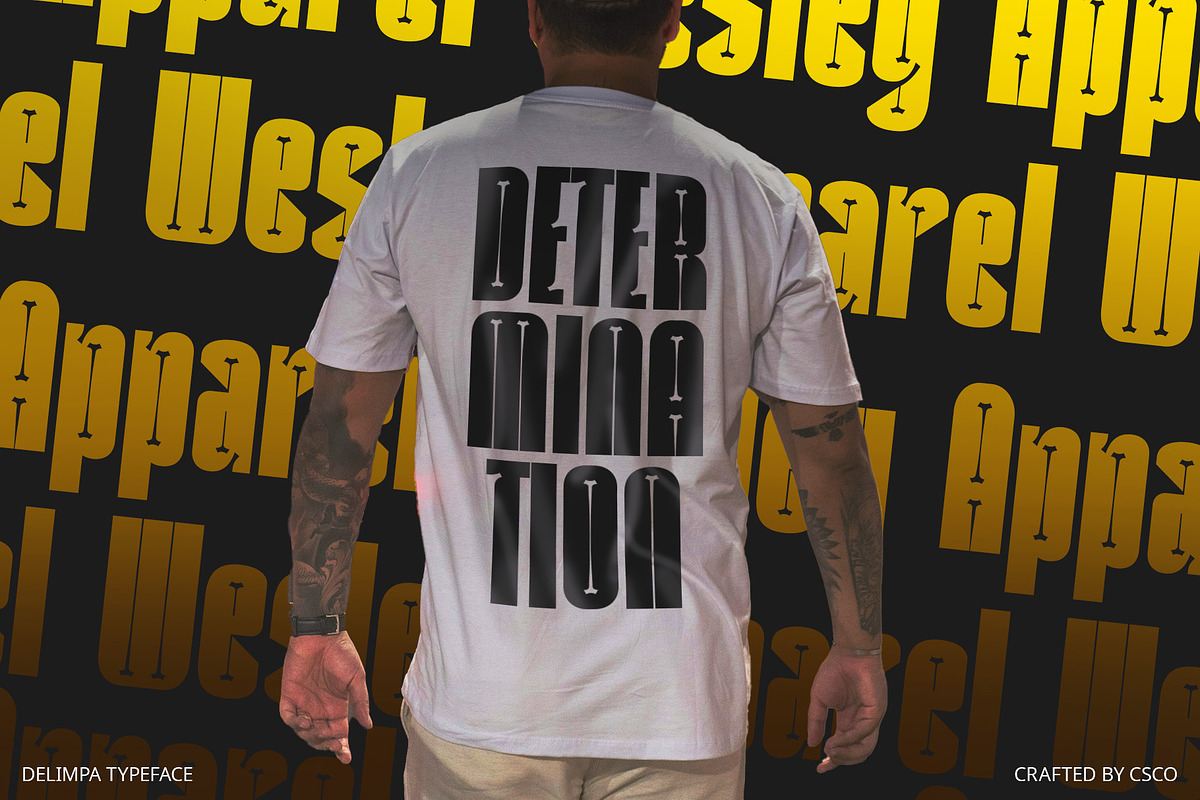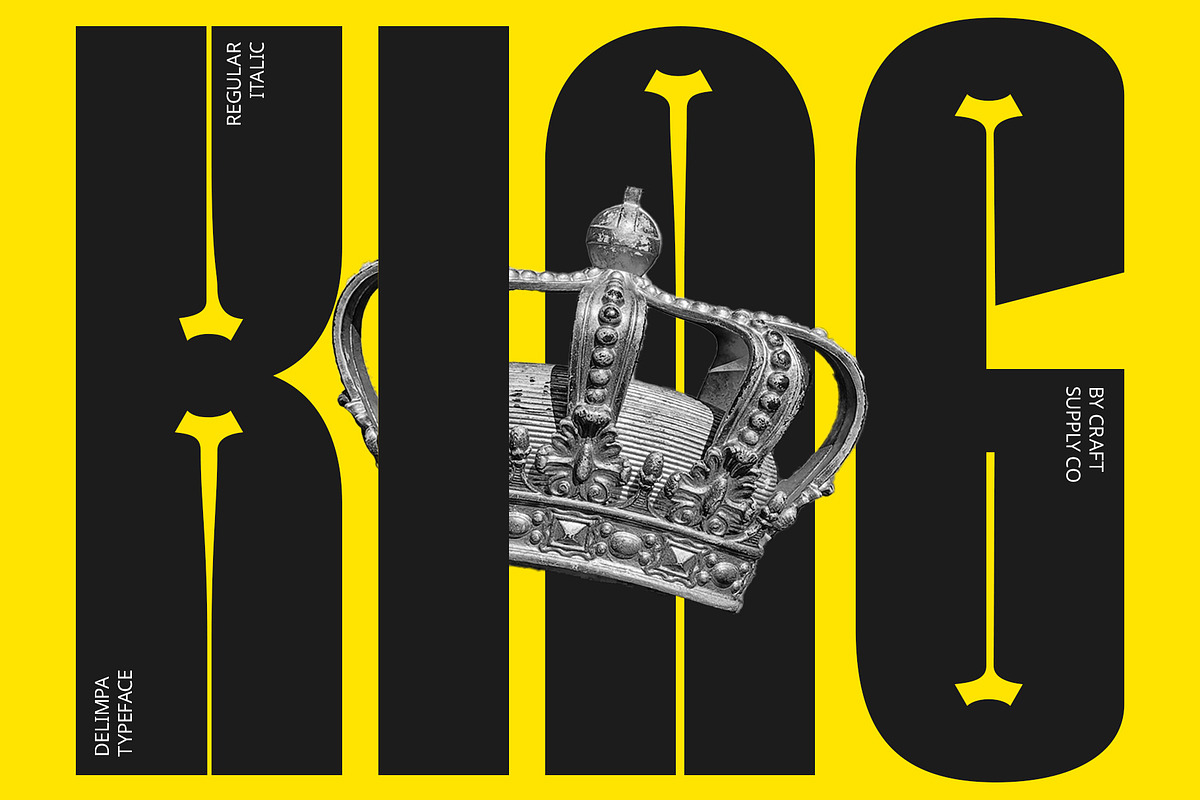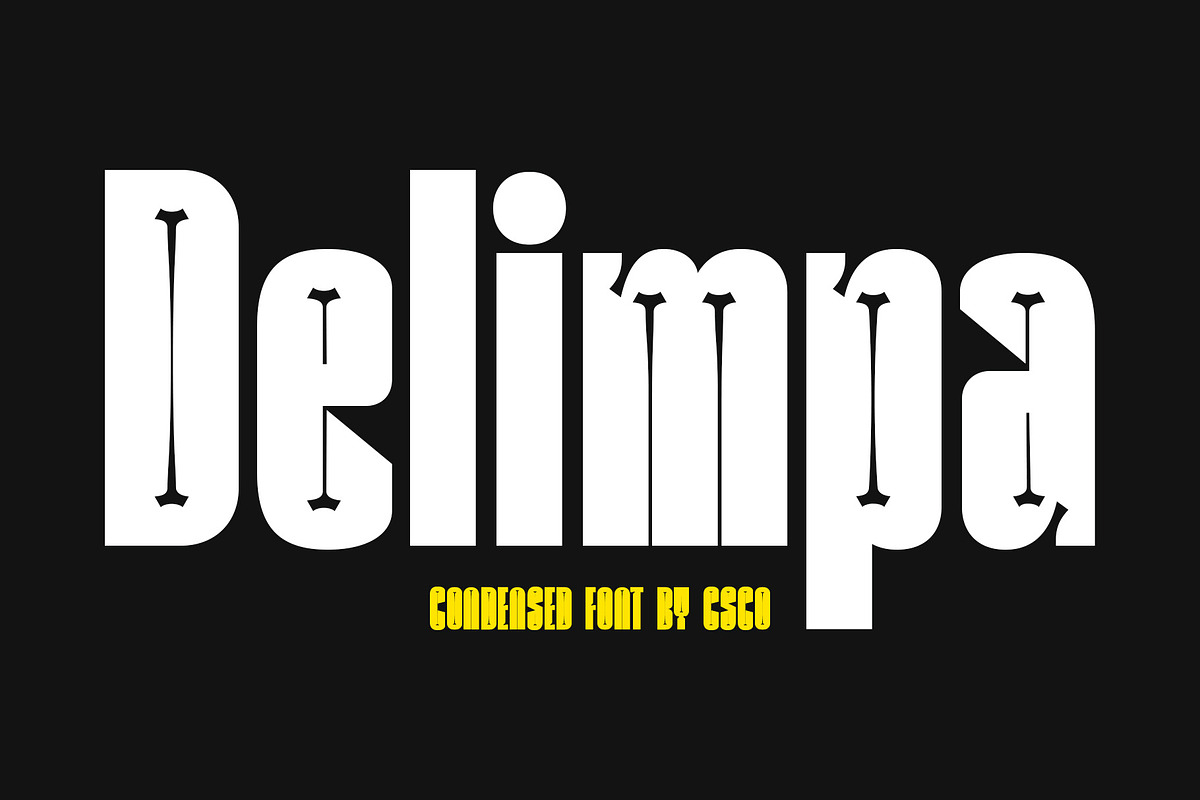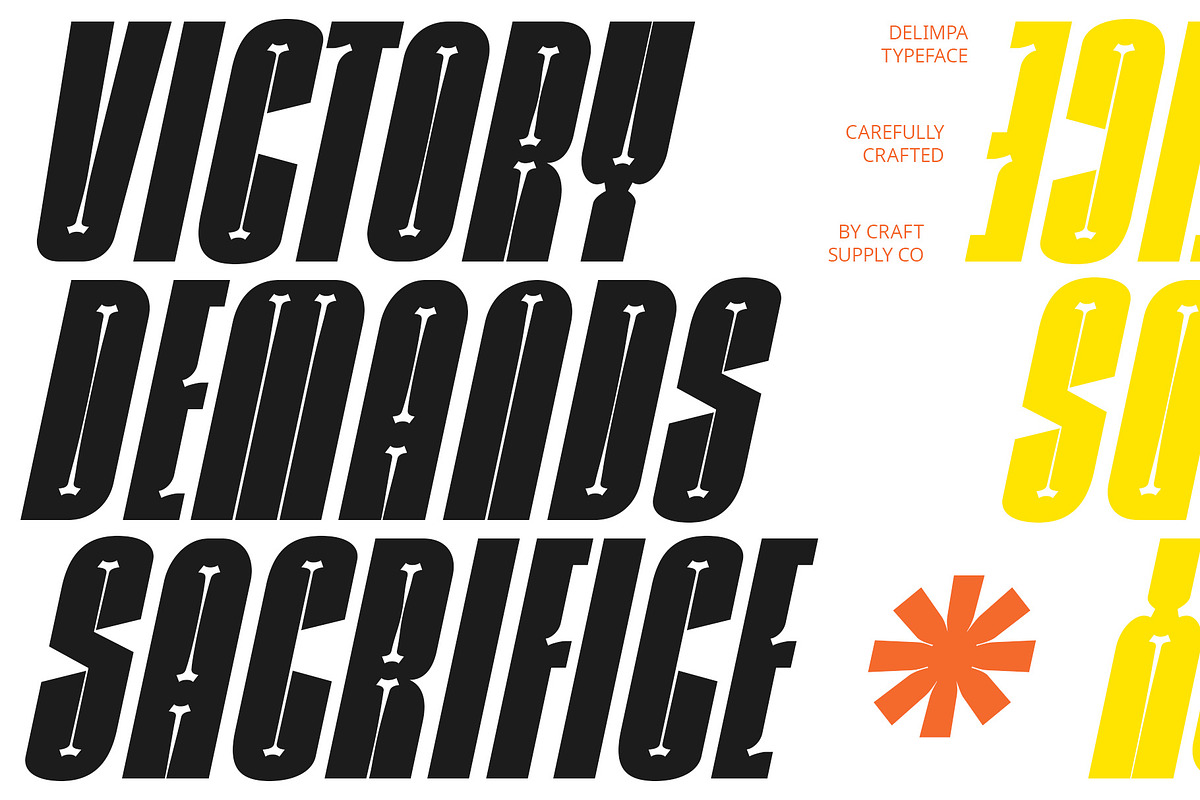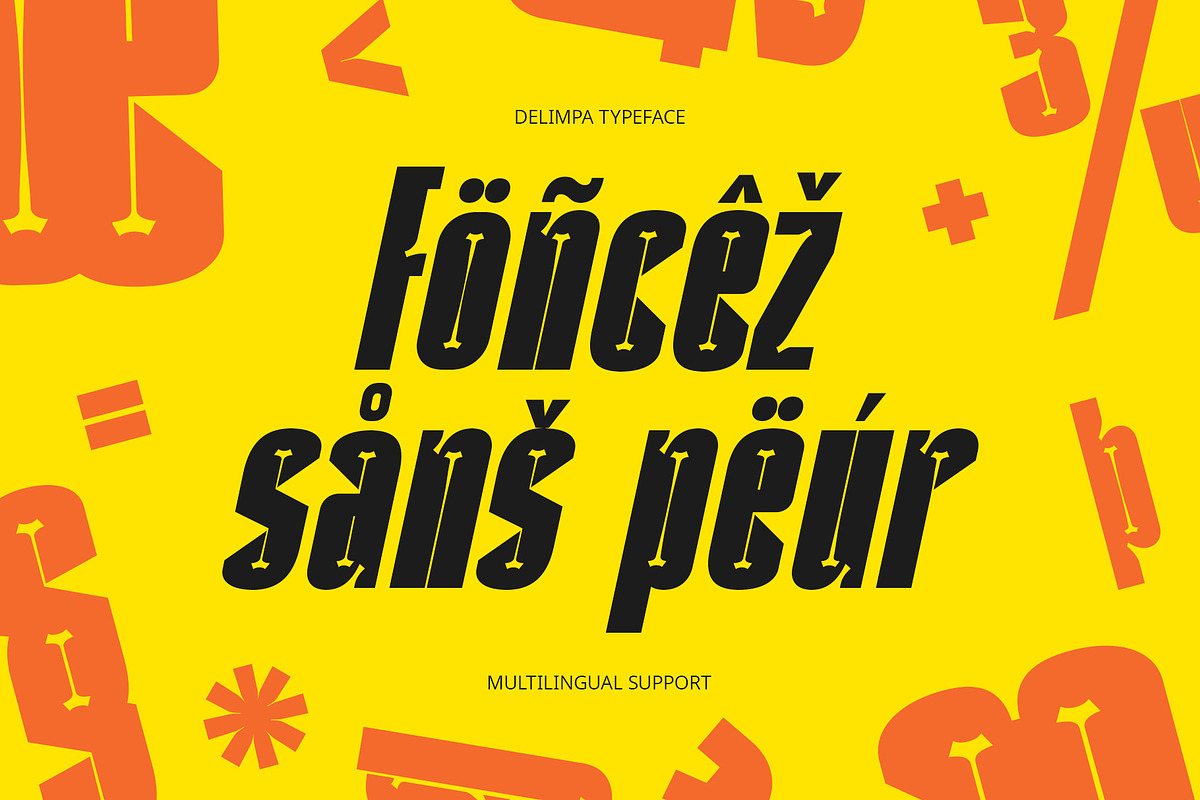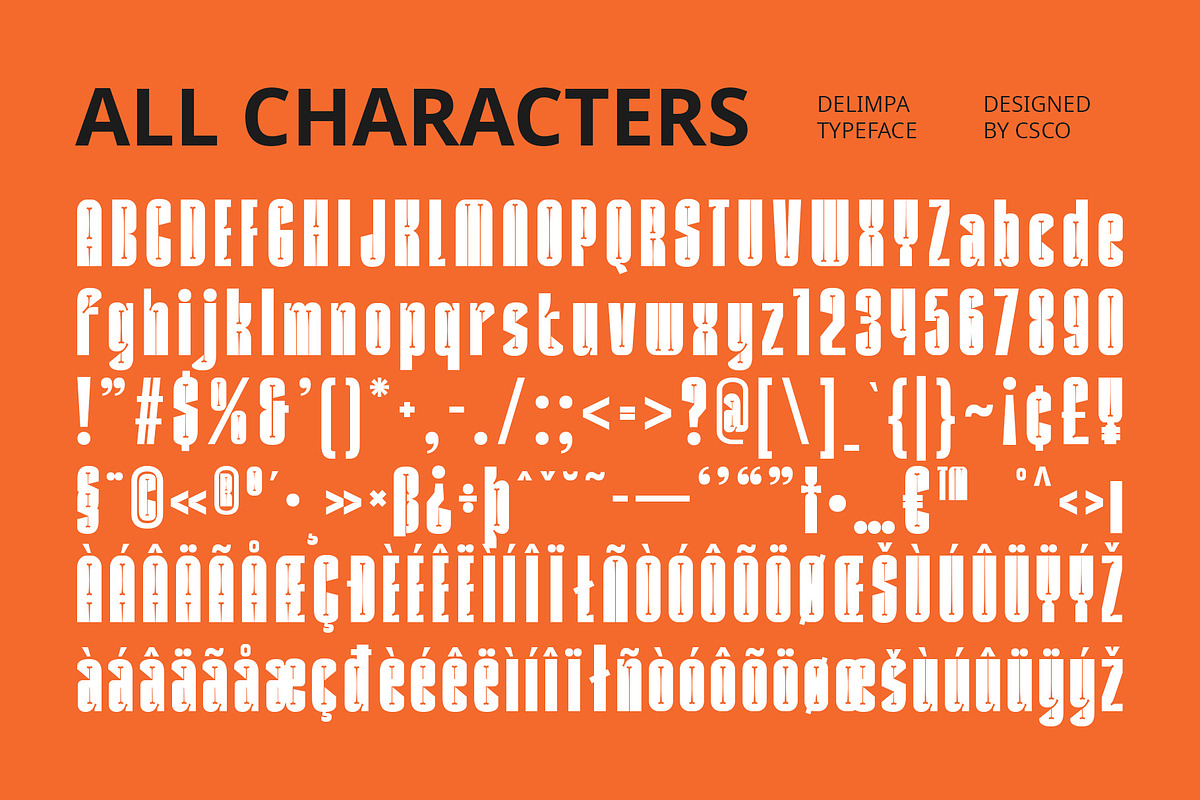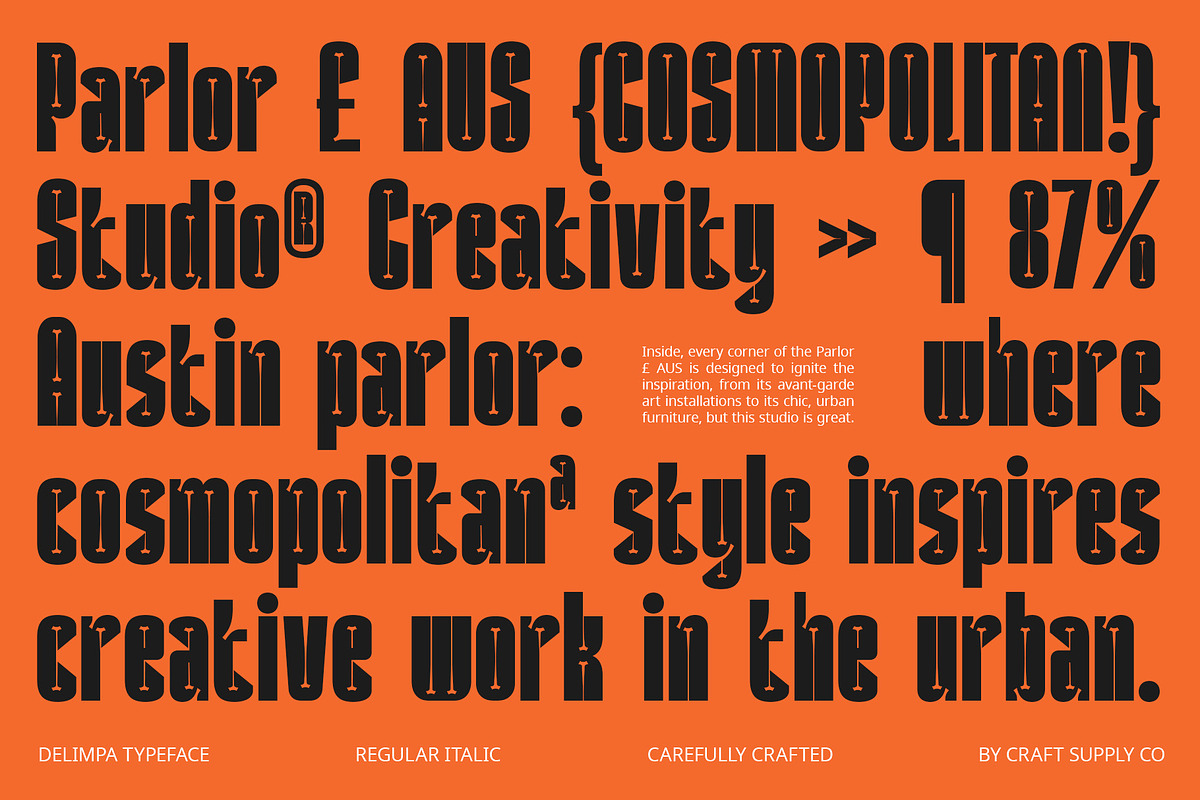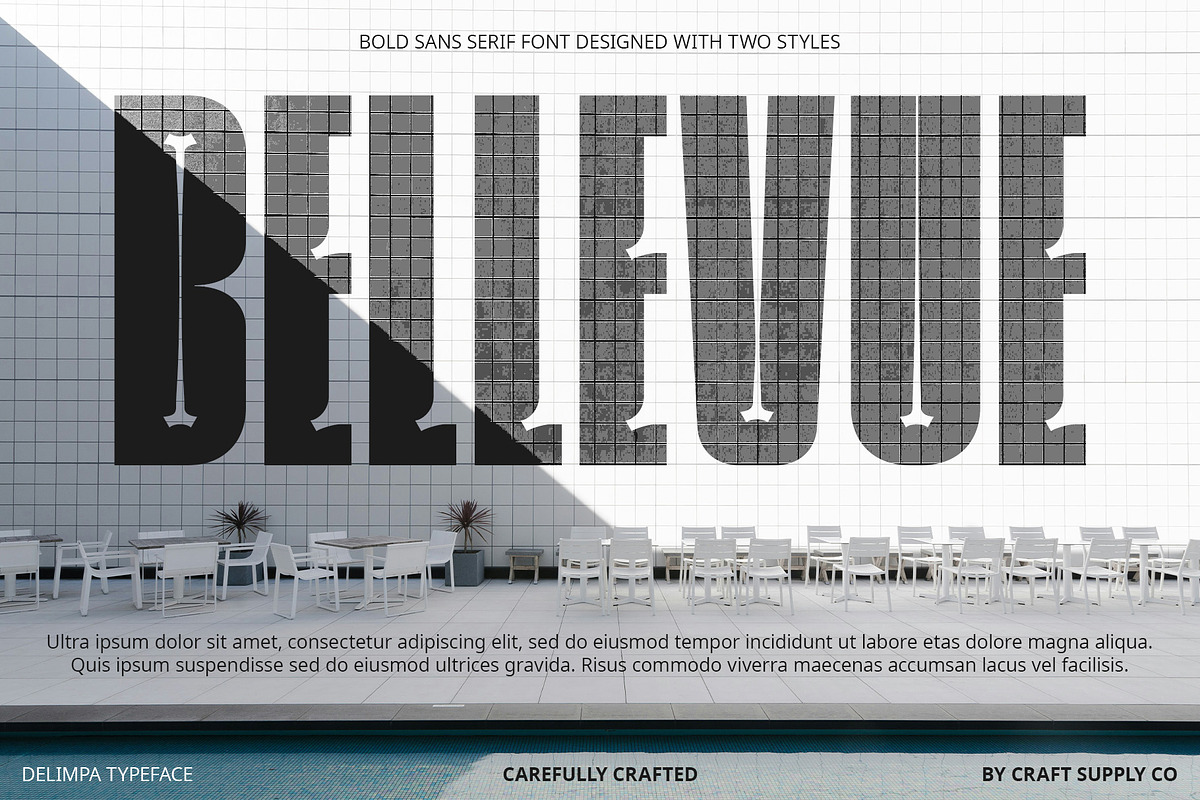
Delimpa – Inktrap Font
Delimpa: Bold and Striking
Bold Condensed Inktrap Sans
Delimpa is a bold, condensed sans serif font with an inktrap style, perfect for creative designs. Its robust design and inktrap details create a distinctive and modern look, ideal for posters, branding, and other projects that require a strong visual impact.
Condensed Form with Inktrap Style
With its tight spacing and intricate inktrap details, Delimpa offers a fresh take on sans serif fonts. The bold and condensed form, combined with the inktrap style, creates a dynamic and eye-catching look, perfect for designs that demand attention and convey a sense of modernity and creativity.
Perfect for Creative Designs
Whether you’re designing a striking advertisement or creating an edgy logo, Delimpa is sure to make an impression. Its bold design and inktrap style make it perfect for creative projects that need a touch of unique flair and modern sophistication.
Versatile and Easy to Use
Despite its distinctive appearance, Delimpa is versatile and easy to use. The font works well in both large and small sizes, making it suitable for a variety of applications, from headlines and banners to body text and more. With its blend of bold design and inktrap style, Delimpa adds a captivating and professional touch to any design.
- Delimpa Regular
- Delimpa Italic